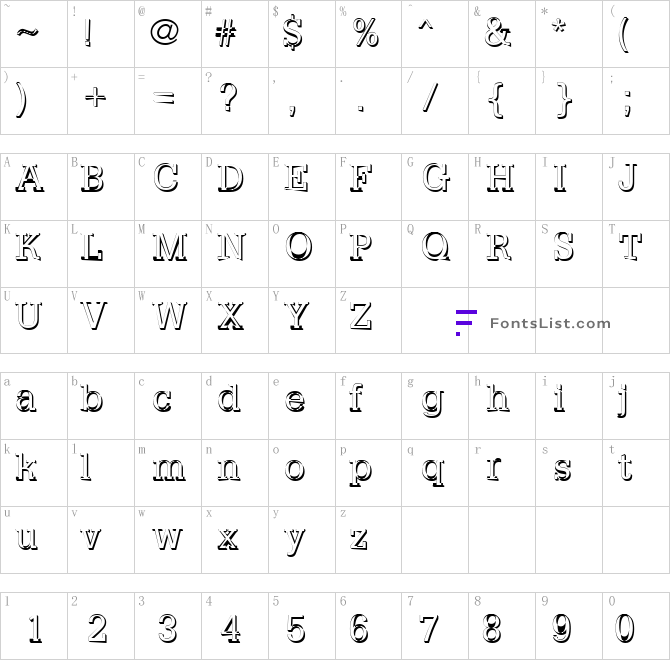
- Font Name:a_Noter3Dxtr
a_Noter3Dextrusion.ttf is a very beautiful artistic font, a_Noter3Dextrusion.ttf is widely used in the design and printing of various books and pictures,a_Noter3Dextrusion.ttf has a strong visual impact,a_Noter3Dextrusion.ttf is a commonly used font in newspapers, magazines and books, and is used in posters, e-commerce Poster design, store design, logo design, font design and other fields.a_Noter3Dextrusion.